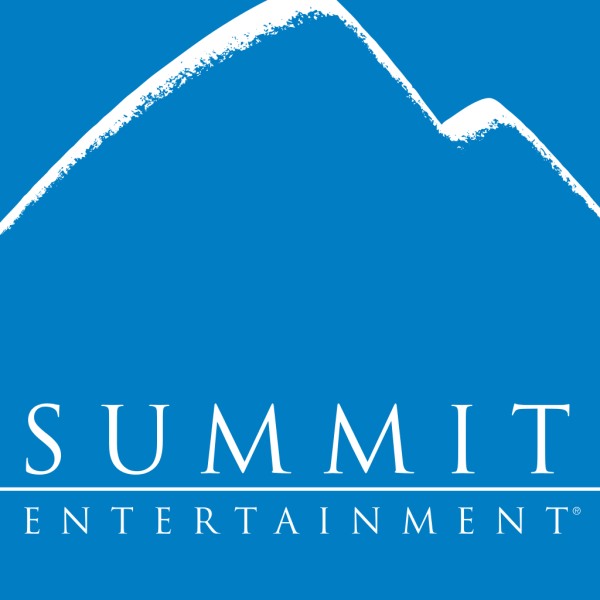
Summit Entertainment Font
EntertainmentSummit Entertainment is an American film production and distribution company that was founded in 1991. It was responsible for producing and distributing popular film franchises such as The Twilight Saga, Now You See Me, and Divergent.
The Summit Entertainment logo utilizes the font known as Trajan. This elegant serif typeface, created by Carol Twombly in 1989, takes inspiration from the inscription found at the base of the Trajan column in Rome.